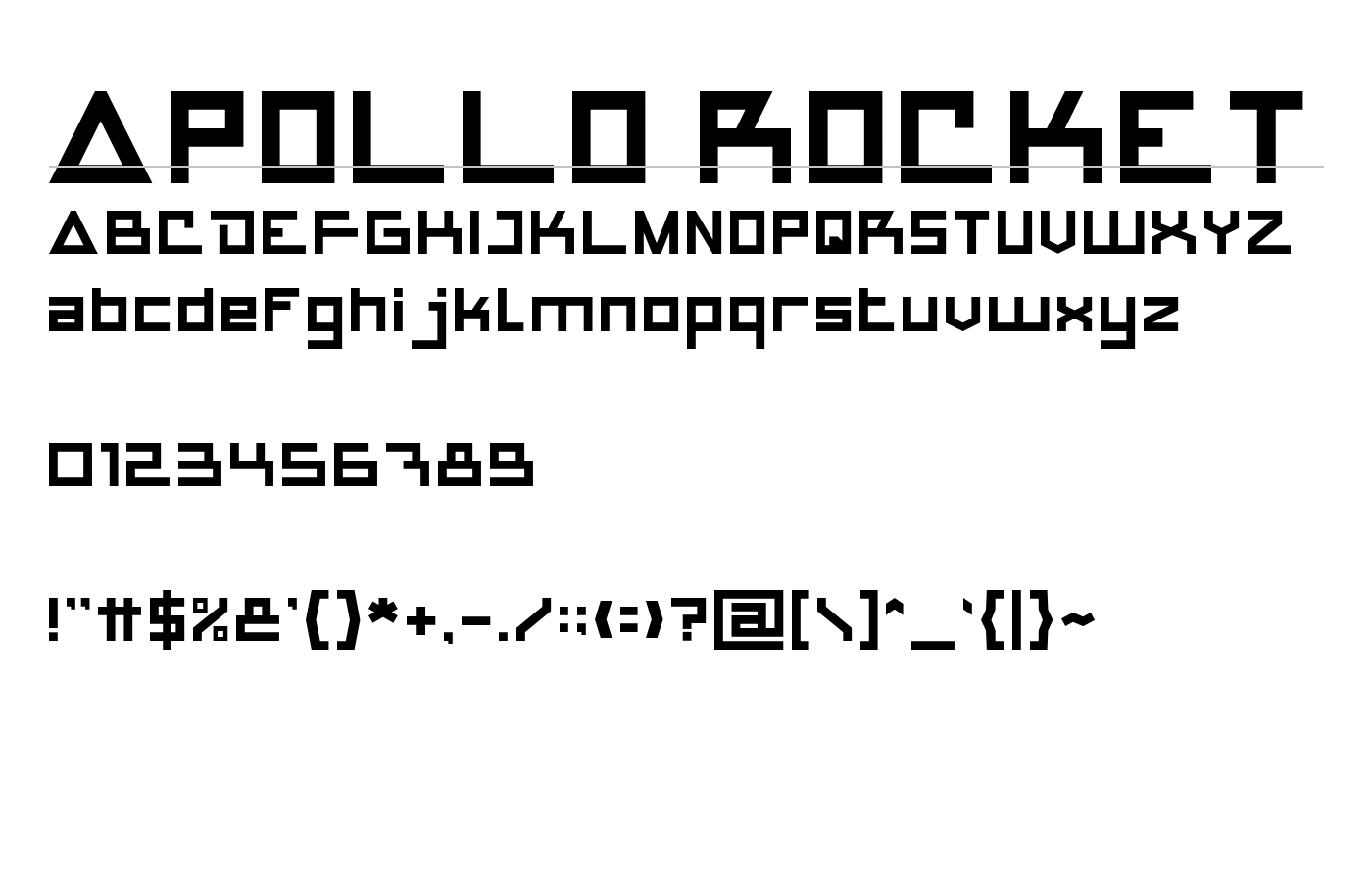
Apollo Rocket is a bold, geometric sans serif font with a futuristic, tech-inspired vibe. Its squared shapes and sharp angles give it a strong, modern presence, perfect for branding or headlines that want to convey innovation and strength. This font works well in logos, posters, and digital interfaces where a distinctive, space-age style is desired.
APOLLO ROCKET Font
About APOLLO ROCKET Font